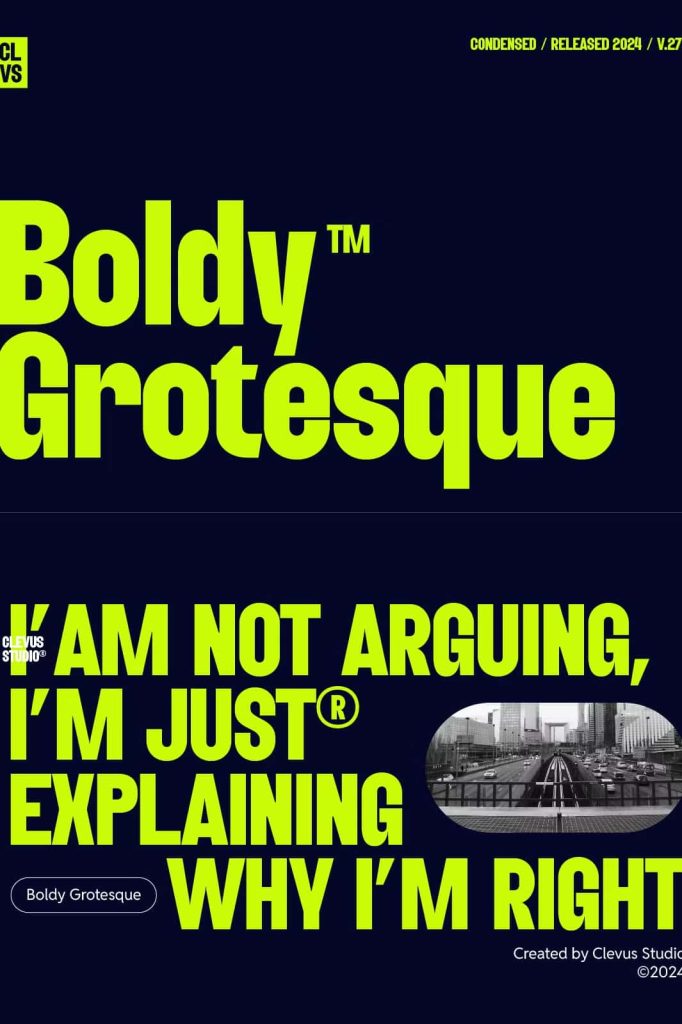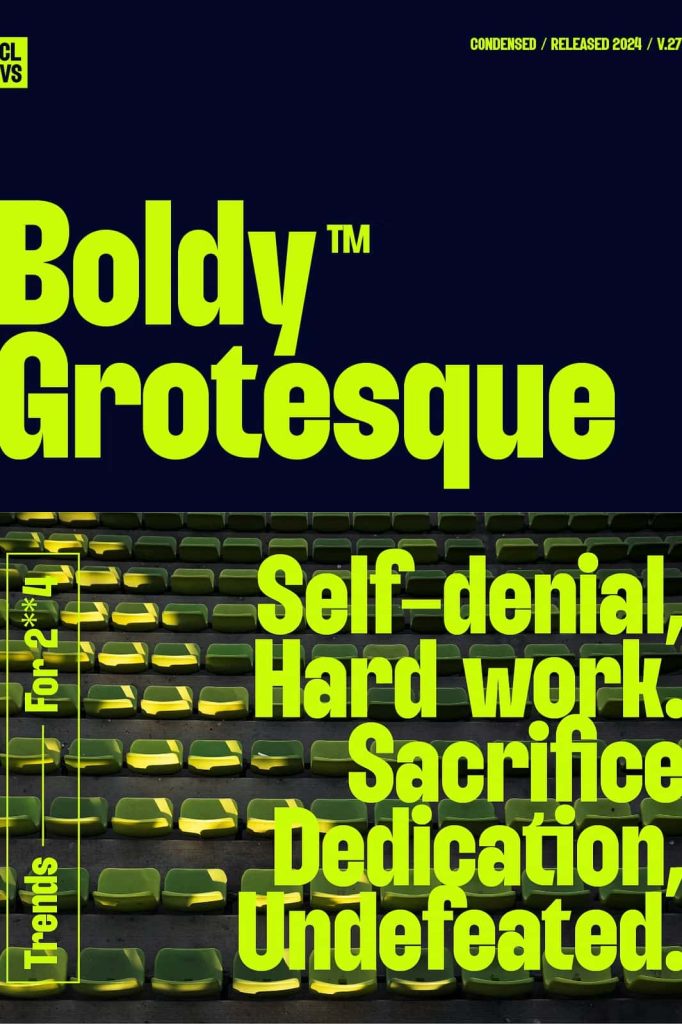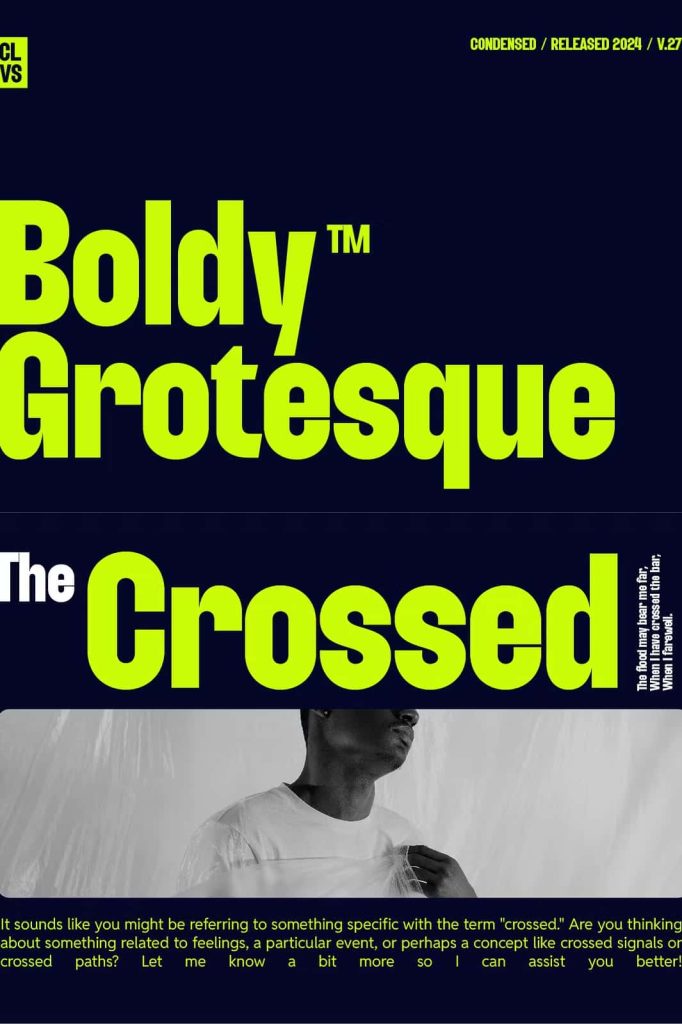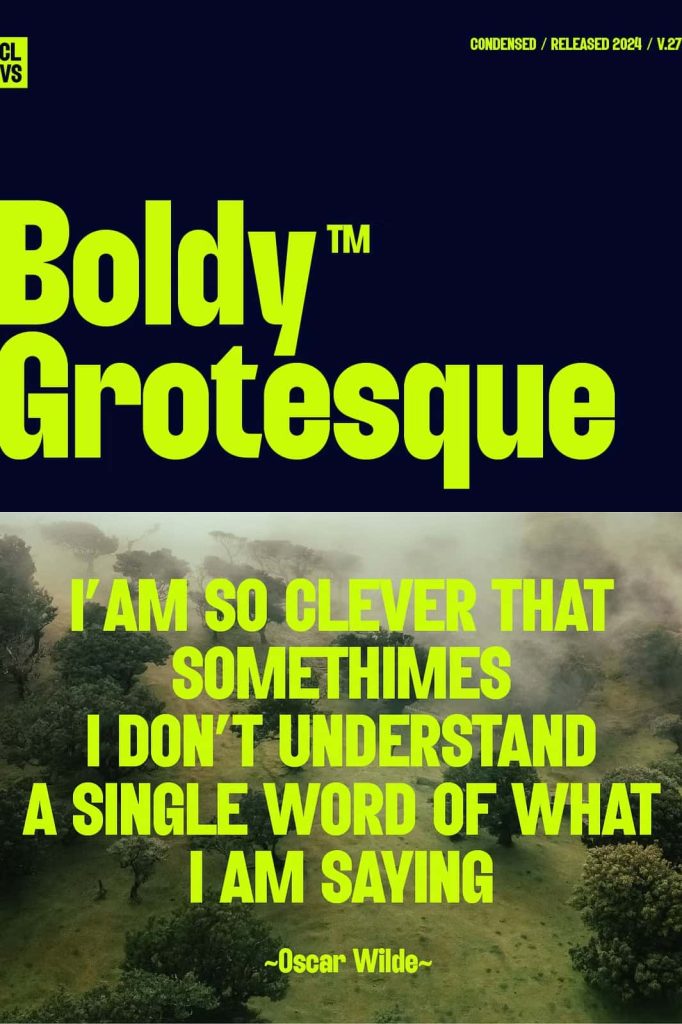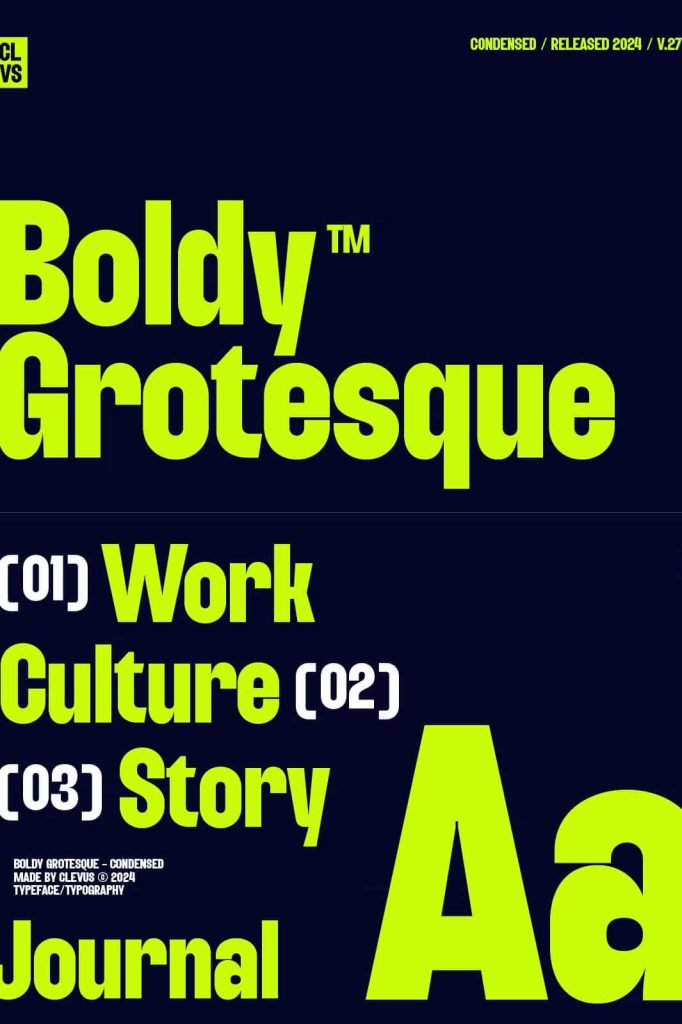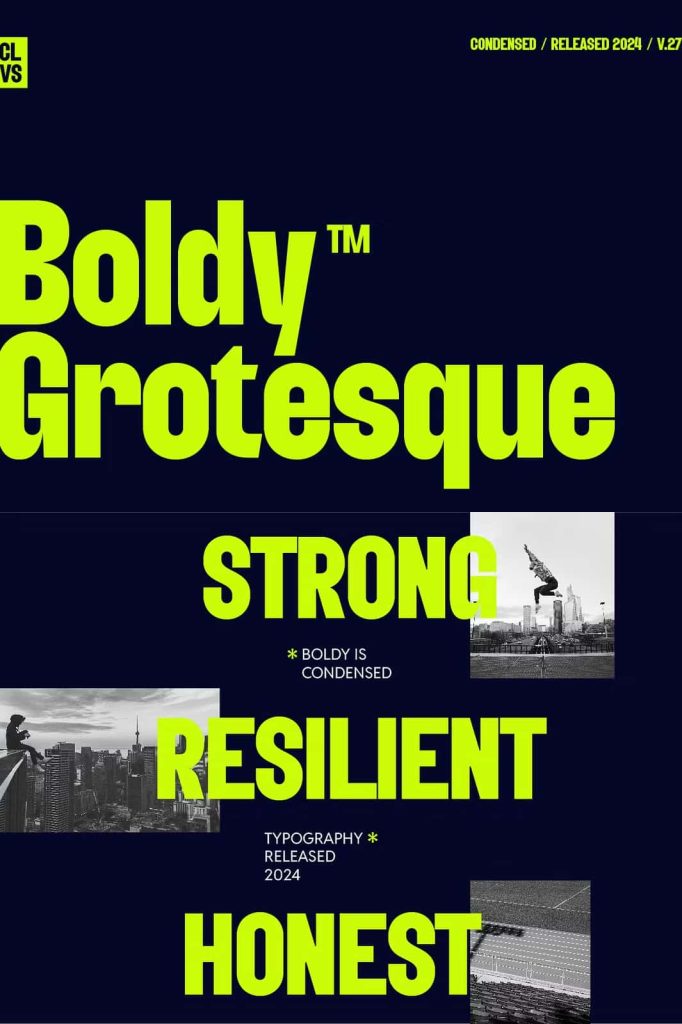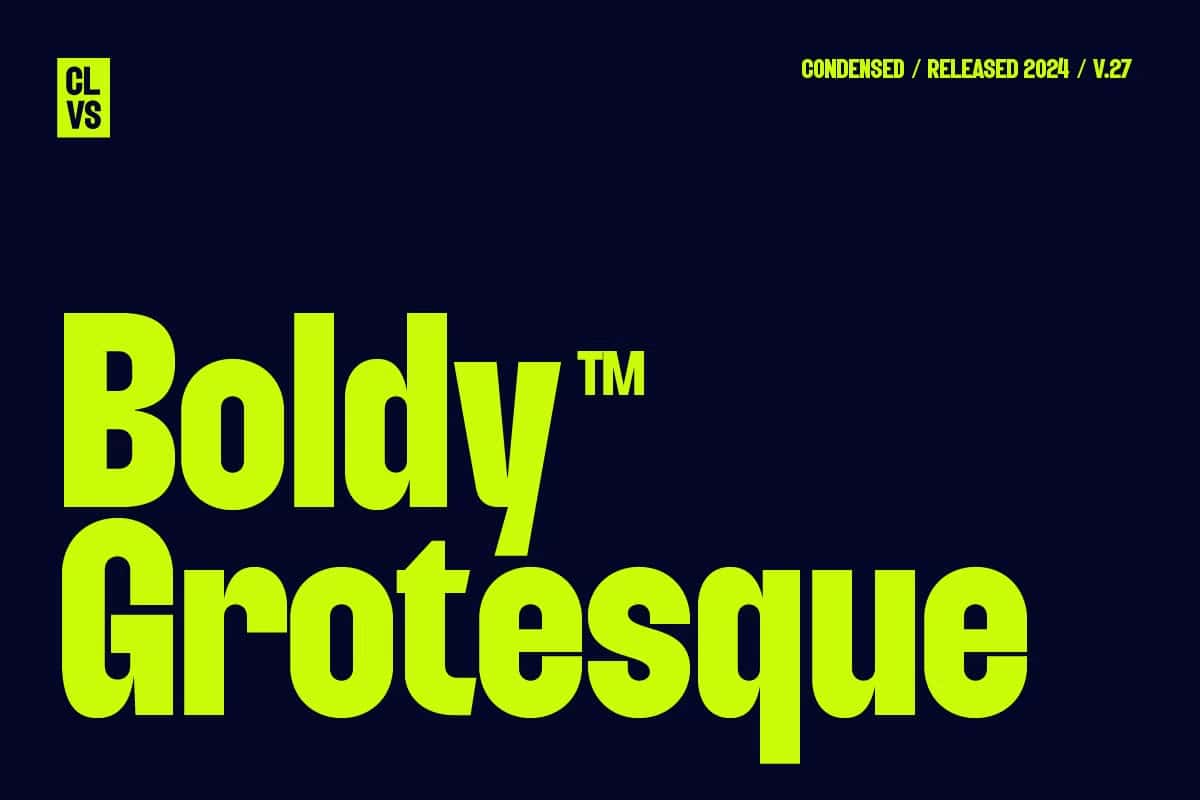
Boldy Grotesque Font: A Modern and Powerful Typeface for Professional Design
Boldy Grotesque Font is a modern and bold condensed typeface inspired by timeless grotesque font design. This font delivers a strong visual impact, making it perfect for designers who need a clean, confident, and highly functional font for professional projects. Its design emphasizes modern structure while retaining the distinctive style of classic grotesque typography. With its versatile features and powerful visual presence, Boldy Grotesque helps elevate digital and print creations effortlessly.
Bring Confidence and Clarity to Every Design
Boldy Grotesque Font is designed to communicate strength, precision, and professionalism. Its bold condensed structure allows designs to appear sharp and dynamic without sacrificing readability. Whether used in large headlines or smaller subtext, this font maintains outstanding clarity and balance.
Since modern branding trends often prioritize simplicity with strong typographic weight, Boldy Grotesque offers the perfect solution. Its heavy strokes, sharp structure, and minimal ornamentation make it ideal for impactful messaging and stunning visual hierarchy.
Feature-Rich Typeface to Support Creative Needs
Boldy Grotesque is equipped with several OpenType features, giving designers the flexibility to craft expressive and memorable typography. The font includes over 40 unique alternates and ligatures, enabling users to explore visual variations and stylistic combinations. These features allow Boldy Grotesque to adapt seamlessly to various design environments, Whether elegant, edgy, formal, or experimental.
Designers can use the alternates to create distinctive lettering for logos, product packaging, headline banners, and printed editorial layouts. The ligatures ensure smooth letter transitions, giving typography a more natural and well-structured appearance. With these features available, every project becomes more unique, professional, and polished.
Perfect for a Wide Range of Creative Applications
Boldy Grotesque Font is suitable for many design purposes, especially when projects require a combination of bold style and minimalism. This font works exceptionally well for:
- Logo and brand identity projects
- Magazine covers and editorial layouts
- Product packaging and label designs
- Social media posts and promotional advertisements
- Posters, flyers, and event announcements
- Wedding invitation titles and creative stationery
- Website headers and digital marketing materials
- Blog graphics and highlight text in visual content
Its condensed form saves horizontal space without losing character, making it efficient in layout management and ideal for tight compositions.
Why Designers Choose Boldy Grotesque Font
Boldy Grotesque stands out because it merges the elegance of classic grotesque typefaces with modern boldness. It provides the flexibility necessary for sophisticated branding while remaining simple, readable, and impactful. Whether used in minimalist branding strategies or bold marketing campaigns, this typeface supports creative storytelling through strong typographic presence.
If you are searching for a font that blends personality, functionality, and visual authority, Boldy Grotesque Font is an excellent choice. It empowers designers to communicate messages with precision, clarity, and style.
Final Thoughts
Boldy Grotesque Font is more than just a bold condensed font. It is a design solution built for versatility, modern appeal, and professional execution. With OpenType alternates, ligatures, and powerful typographic style, it enhances branding, layout design, advertising, editorial work, and digital content. Add Boldy Grotesque to your font collection to experience design freedom and impactful visual storytelling.